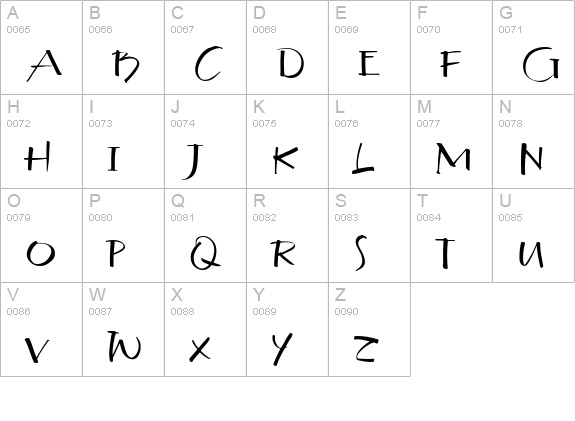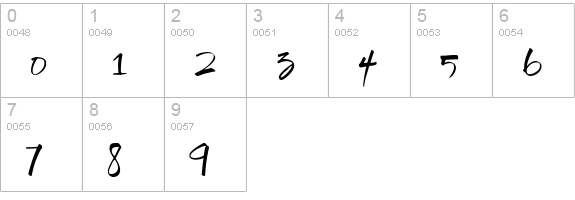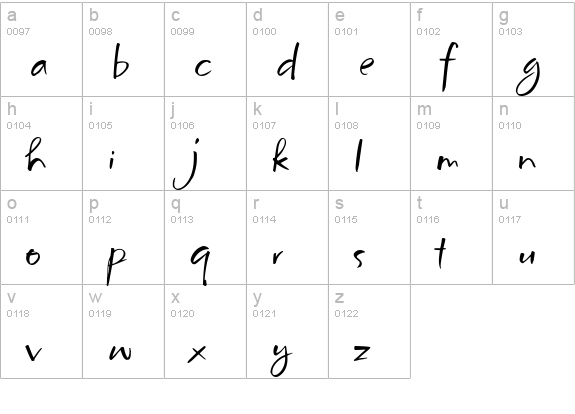
McBooHmk Font Details
McBooHmk font is a stylish and versatile typeface that exudes elegance and sophistication. Its sleek and modern design makes it perfect for a wide range of creative projects, from branding to editorial design. The clean lines and balanced proportions of McBooHmk font make it easy to read and appealing to the eye. One of the best features of McBooHmk font is that it is completely free to download at FontsMarket.com. This means that you can access this high-quality typeface without any cost, making it a valuable resource for designers, artists, and anyone looking to add a touch of class to their projects. Whether you are working on a logo, poster, website, or any other design project, McBooHmk font is sure to impress with its refined aesthetic and timeless appeal. Download it today from FontsMarket.com and elevate your designs with this elegant and free typeface.